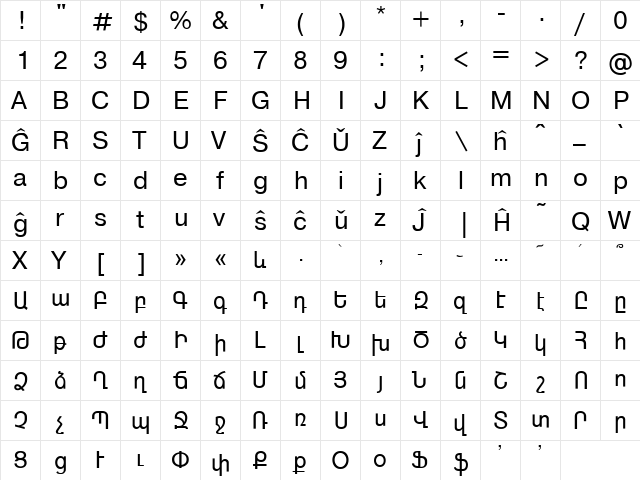
Espar Arial Classic Regular
Design Context for Espar Arial Classic Typeface
Espar Arial Classic has the warm character of retro typography — evoking diners, record sleeves, and the golden age of print advertising.
Font Pairing: Combine Espar Arial Classic with a simple slab or neutral sans — period-accurate companions reinforce the vintage feel without competing for attention.
Pro Tip: Lean into Espar Arial Classic's period character by pairing it with aged paper textures, muted colour palettes, and vintage illustration styles.